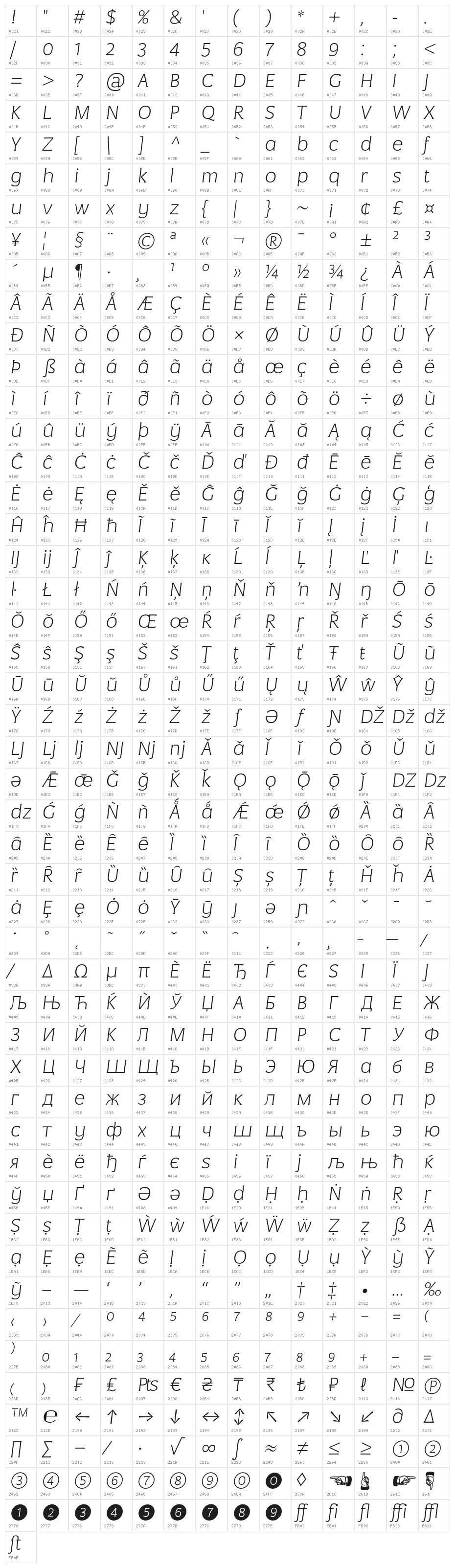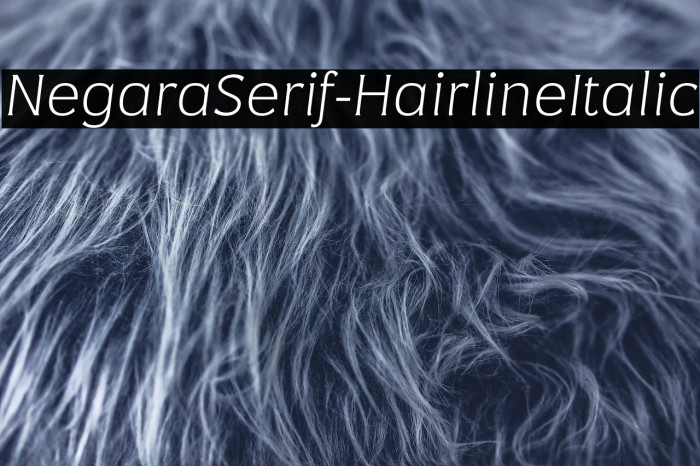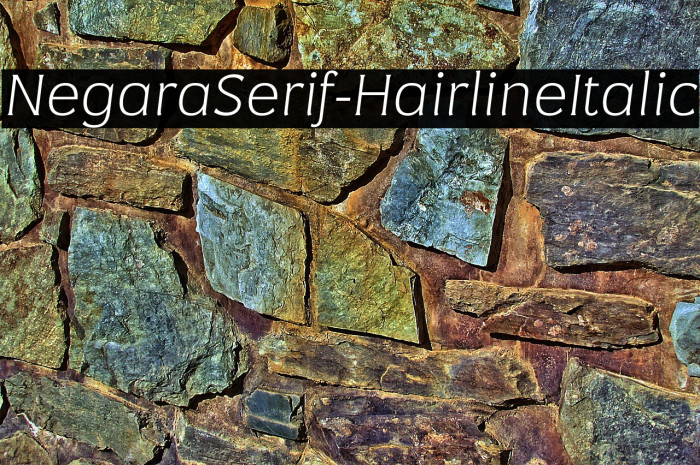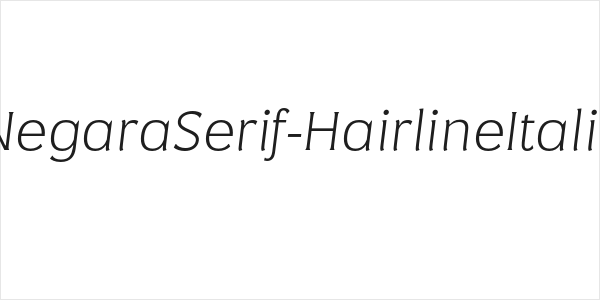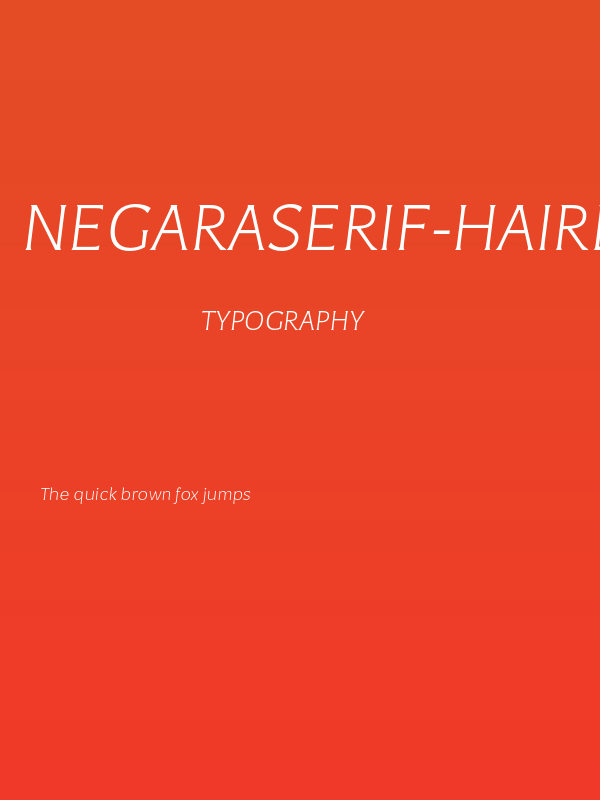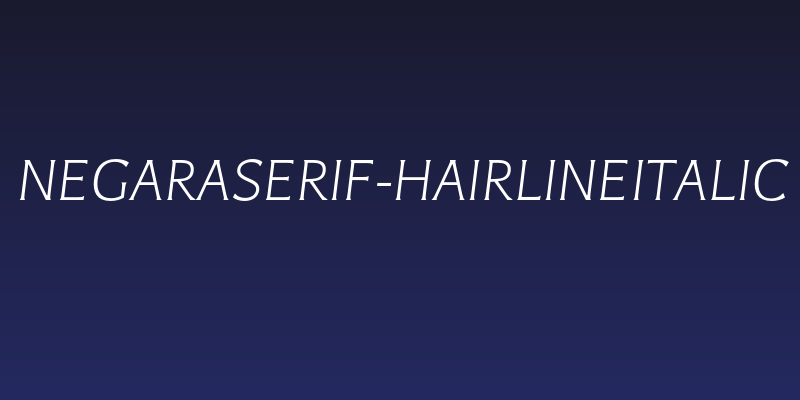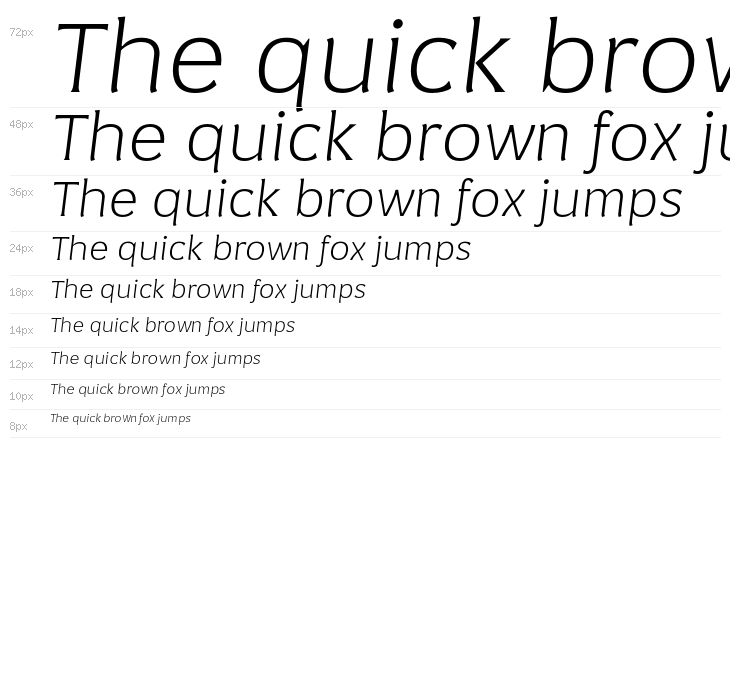
NegaraSerif-HairlineItalic Font
NegaraSerif-HairlineItalic Description
This font features a refined and elegant design with a hairline weight, giving it a delicate and sophisticated appearance. The italic style adds a graceful slant to the characters, enhancing its fluidity and dynamic presence. The serif elements are subtle, providing a classic touch while maintaining a modern aesthetic. The overall look is clean and minimalistic, making it suitable for upscale and professional applications. The characters are well-proportioned with consistent spacing, ensuring readability and visual harmony across different sizes.
| Use Case | Logos, Headlines, Editorial design |
| Proposed Projects | Ideal for luxury branding, editorial design, wedding invitations, and high-end product packaging. |